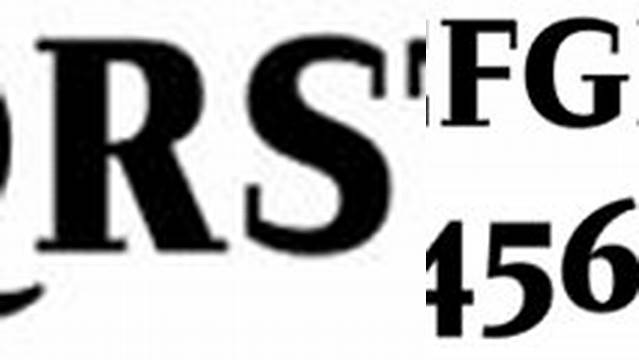
Understanding Diogenes SC Black Font: Characteristics and Features
Diogenes SC Black is more than just a font; it's a statement. It's a display typeface known for its bold, impactful presence. Designed with a focus on readability and aesthetic appeal, this font stands out with its strong letterforms and commanding personality. The 'SC' in the name often refers to 'Small Caps', which means that the font includes small capital letters in addition to standard capitals and lowercase characters. This feature gives designers an added layer of flexibility and visual interest. Its weight, often referred to as 'Black', signifies that it's a heavier, bolder version of the font. This boldness is one of its most defining characteristics, making it perfect for headlines, titles, and any design element where you want to grab immediate attention. One of the key features of Diogenes SC Black is its versatility. Despite its bold nature, it can be applied across various design contexts, from print materials like posters and flyers to digital applications such as website headers and social media graphics.
When we get into the specifics, Diogenes SC Black often features a slightly condensed design, which contributes to its compact and impactful appearance. The letterforms are meticulously crafted, ensuring clarity and legibility even at larger sizes. The font’s design often incorporates a contemporary aesthetic, but its classic influence gives it a timeless quality. This means that designs using Diogenes SC Black won’t quickly look outdated; instead, they'll maintain a sense of modern sophistication. The font’s availability in a black or bold weight gives designers the ability to create stark contrasts, which is essential for making headlines and other key text elements pop. The bold strokes and sharp corners inherent in its design make it excellent for conveying strength and authority. It's a solid choice for branding projects, where a strong visual identity is required. Given its characteristics, it’s a great option for projects targeting a modern or contemporary audience. It blends well with minimalist and clean design styles, enhancing their overall impact. With a design like Diogenes SC Black, you have the capability to really showcase your content and ensure it makes a memorable impression. The use of small caps also contributes to a sophisticated aesthetic, which can enhance the overall professionalism of a design. Think about all these features as you plan and work on your creative projects.
Usage Tips and Best Practices for Diogenes SC Black Font
So, you've got Diogenes SC Black, now what? Here’s how to make the most of it. First, think about its impact. The bold nature of the font makes it the perfect choice for headlines, titles, and any area where you need to grab attention immediately. It’s amazing for creating strong visual statements in marketing materials. When you design, aim for a balance with other fonts. Pair Diogenes SC Black with a simpler, more readable font for body text to create a visual hierarchy. This ensures that your headlines stand out while your body text remains easy to read. The color palette of your project also matters. Since it's a heavy font, using it with bold colors can sometimes overwhelm a design. Try using it with more subdued or neutral backgrounds. This makes sure the font looks its best without clashing with other design elements. Pay attention to the spacing. Because the font is bold, adjusting the letter and line spacing can improve readability. Experiment with tracking and leading to get the right balance.
Also, be mindful of the font’s size. Diogenes SC Black can lose its impact if it's too small. Using it at a larger size ensures that its strong letterforms are clearly visible. Consider using the font for logos or branding. Its strong design makes it great for conveying professionalism and authority, making it the perfect choice for brands that want to appear strong and reliable. Keep in mind, you can also use it in digital designs such as website headers, social media posts, and digital advertisements. If you are using the font for print, make sure you have high-resolution files, as this is essential for maintaining the sharpness and clarity of the text. Regularly test your designs across different devices and platforms. This guarantees that the font renders correctly on all screens, and it lets you make any adjustments to make sure your text remains readable. Take time to study examples of how other designers use Diogenes SC Black. This gives you some design inspiration and lets you learn about its versatility. Experiment with different text effects like shadows, outlines, and gradients, to give your text more visual interest. With a little creativity, this font can be a great asset in your design toolkit. Remember to take these guidelines to heart to produce eye-catching designs.
Conclusion: Unleash the Power of Diogenes SC Black
Diogenes SC Black is an exceptional font, a bold and versatile choice that can greatly enhance any design project. Its impact, readability, and strong character make it a perfect asset for grabbing attention and making an impression. By understanding its characteristics, using it strategically, and being prepared to troubleshoot common issues, you can make the most of this font in your creative endeavors. With its robust design and distinctive features, Diogenes SC Black provides designers with an effective tool to elevate their work. Go ahead, download Diogenes SC Black font free, experiment with its capabilities, and explore how it can help you create stunning designs. The world of design is waiting for your creativity, and this font can be a great tool to help you achieve the goals you've set for your creative endeavors. With the right approach, the power of this font can bring your designs to life. Keep experimenting and pushing the boundaries of what is possible in your design projects. Happy designing!